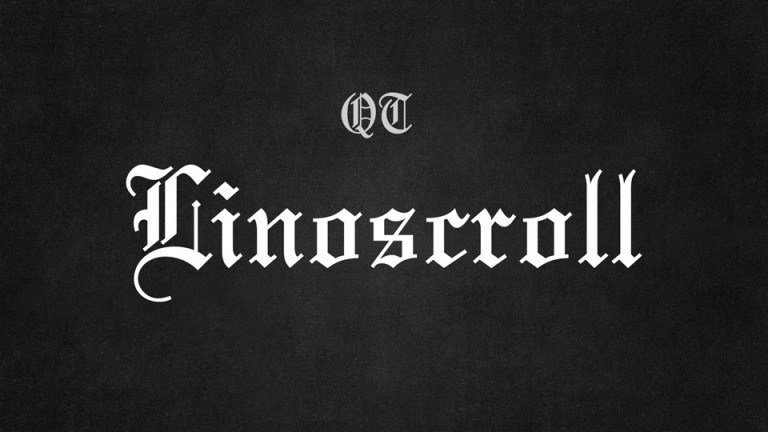
Linoscroll Blackletter Font
Linoscroll Blackletter Font is a handmade Modern Victorian handlettering, which is combining modern and classic typography with some awesome alternates.
So that it has a natural blackletter touch. Very suitable for use posters, headlines, branding, labels, logotype, and much more.